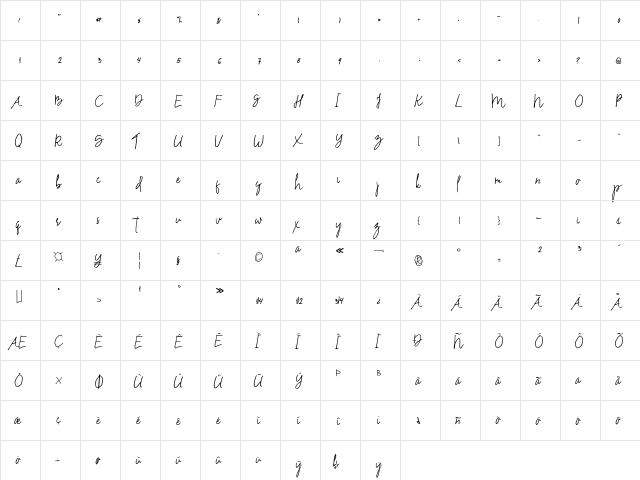
Drinkwater Regular
Design Context for Drinkwater Typeface
Drinkwater is a composed and adaptable typeface that performs quietly and consistently across a wide range of design contexts.
Pro Tip: Use Drinkwater in both headline and body roles to test its range before committing to a single application.